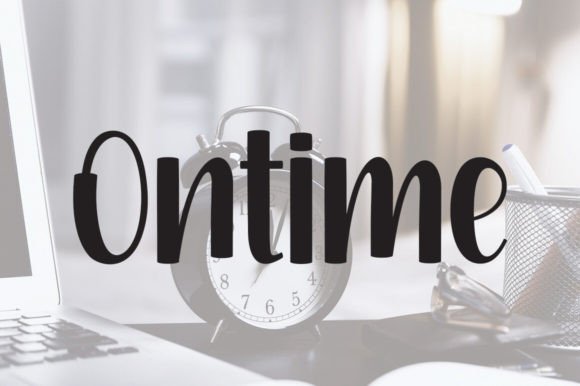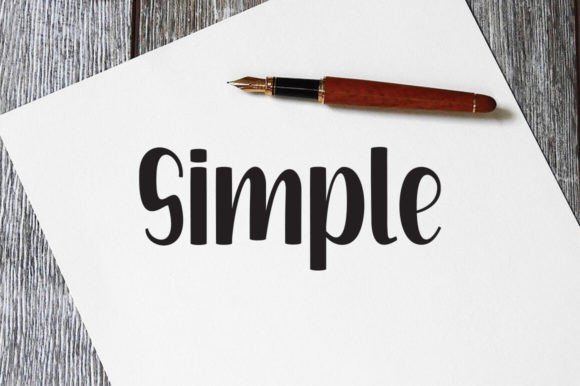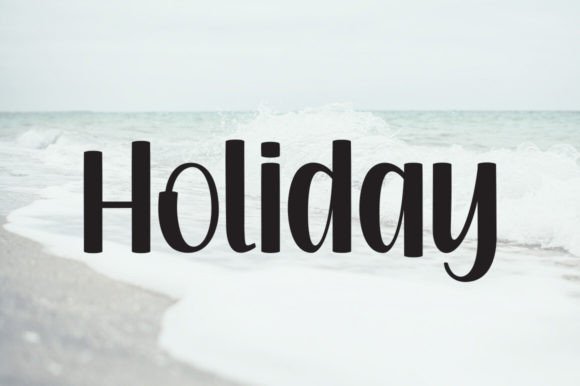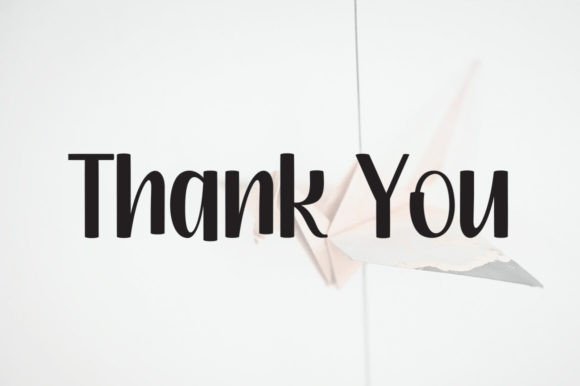
Introducing Chilhood Friend Font: A Sweet and Cursive Handwritten Delight
Are you on the hunt for a font that can add a touch of warmth and personality to your designs? Look no further than Chilhood Friend Font, a beautiful and cursive handwritten font that’s perfect for a variety of creative projects. In this article, we’ll dive into the details of this lovely font and explore how it can elevate your designs with its sweet and romantic charm.
What is Chilhood Friend Font?
Chilhood Friend Font is a carefully crafted, cursive handwritten font that’s designed to bring a sense of joy and playfulness to your designs. Its gentle, flowing lines and sweet letterforms make it an ideal choice for adding a personal touch to a wide range of projects, from wedding invitations and greeting cards to branding and packaging.
Key Features of Chilhood Friend Font
- Sweet and Cursive Handwritten Style: Chilhood Friend Font boasts a beautiful, cursive handwritten style that’s perfect for adding a touch of elegance and sophistication to your designs.
- Versatile and Adaptable: This font is incredibly versatile and can be used on a variety of design ideas, from romantic and whimsical to playful and fun.
- Easy to Read and Understand: Despite its cursive nature, Chilhood Friend Font is surprisingly easy to read and understand, making it perfect for use in body text and other longer forms of written content.
- Scalable and Flexible: This font is highly scalable and can be used at a wide range of sizes, from small and delicate to large and bold.
Design Ideas to Use Chilhood Friend Font
So, how can you use Chilhood Friend Font in your designs? The possibilities are endless, but here are a few ideas to get you started:
- Wedding Invitations and Stationery: Add a touch of romance and whimsy to your wedding invitations, save-the-dates, and other stationery with Chilhood Friend Font.
- Greeting Cards and Gift Tags: Use this font to create beautiful, handmade-style greeting cards and gift tags that are perfect for special occasions.
- Branding and Packaging: Add a personal touch to your brand’s packaging and marketing materials with Chilhood Friend Font, perfect for businesses with a playful and creative vibe.
- Social Media Graphics and Quotes: Use this font to create eye-catching social media graphics and quotes that are sure to stand out in crowded feeds.
Why Choose Chilhood Friend Font?
So, why should you choose Chilhood Friend Font for your next design project? Here are just a few reasons why this font stands out from the crowd:
- Unique and Eye-Catching: Chilhood Friend Font is a truly unique and eye-catching font that will help your designs stand out from the crowd.
- Emotional Connection: This font has a way of evoking emotions and creating a sense of connection with the reader, perfect for designs that require a personal touch.
- Easy to Use and Pair: Chilhood Friend Font is incredibly easy to use and pair with other fonts, making it a great addition to any designer’s toolkit.
In conclusion, Chilhood Friend Font is a sweet and cursive handwritten font that’s perfect for adding a touch of joy and romance to your designs. With its versatile and adaptable nature, easy readability, and scalable design, this font is an excellent choice for a wide range of creative projects. Whether you’re a designer, crafter, or DIY enthusiast, Chilhood Friend Font is sure to become a favorite in your toolkit.